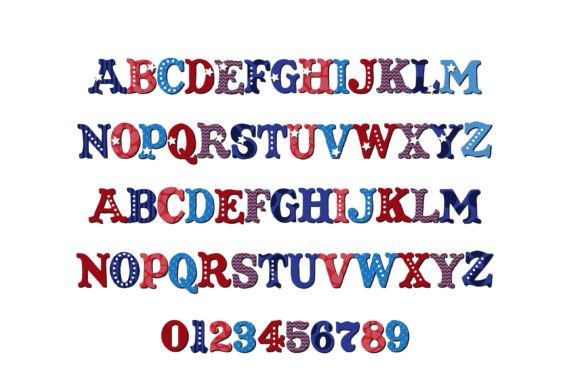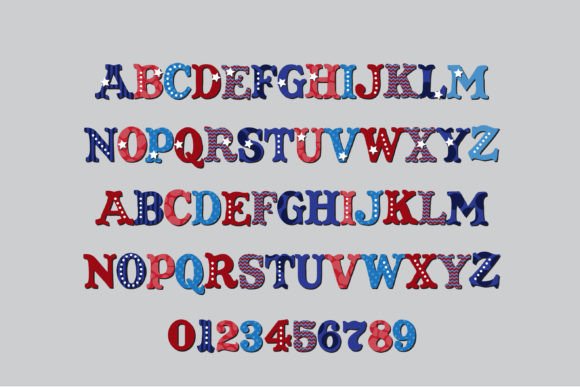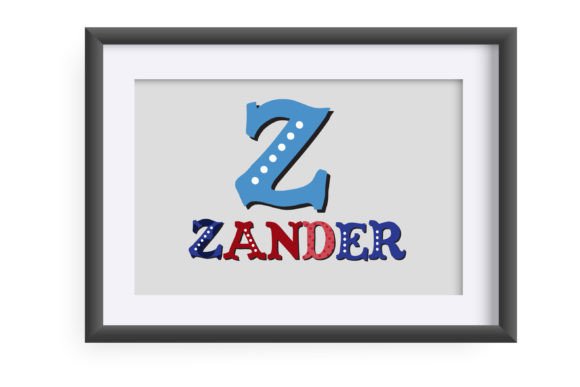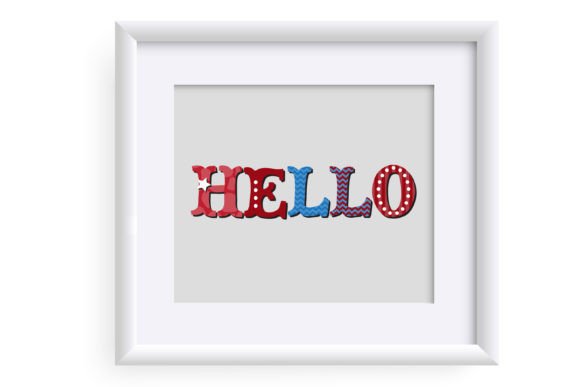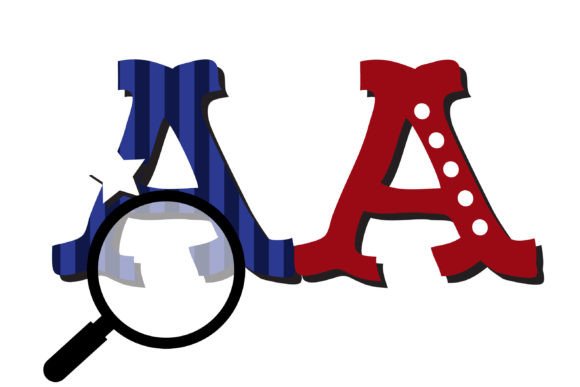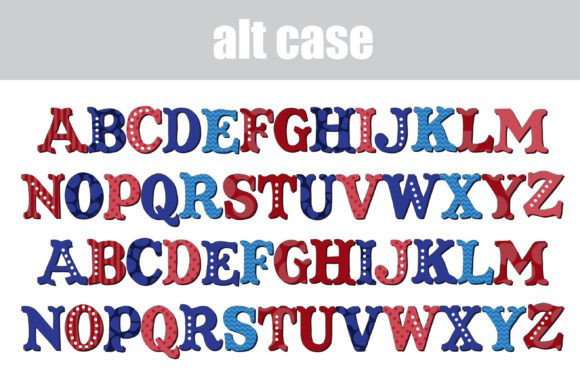
Introducing American Grind Font: A Patriotic Masterpiece for Designers and Crafters
Are you looking for a font that screams American patriotism and nostalgia? Look no further than the American Grind Font! This stunning full-color font features a retro, serif design in a patriotic color palette that’s perfect for creating eye-catching titles, displays, posters, and more.
What Makes American Grind Font So Special?
The American Grind Font is not your average font. Its unique features include:
- Retro, serif font design with a nostalgic feel
- Patriotic color palette that’s perfect for American-themed designs
- Alt case with additional colors accessible through your system or Silhouette’s glyph map
What to Expect When Using American Grind Font
Why Choose American Grind Font?
So why choose the American Grind Font over other fonts? Here are just a few reasons:
- Unique, patriotic design that’s perfect for American-themed designs
- Retro feel that’s perfect for nostalgic projects
The American Grind Font is perfect for designers and crafters who want to add a touch of American patriotism to their projects. Whether you’re creating:
- Party decorations
- DIY crafts
- Signs and posters
- Digital art
This font is sure to be a hit!
Tips and Tricks for Using American Grind Font
Here are a few tips and tricks for getting the most out of the American Grind Font:
- Experiment with different colors and designs to make your project pop
- Use the alt case with additional colors to add extra visual interest
- Pair the font with other patriotic elements, such as stars and stripes, for a cohesive look